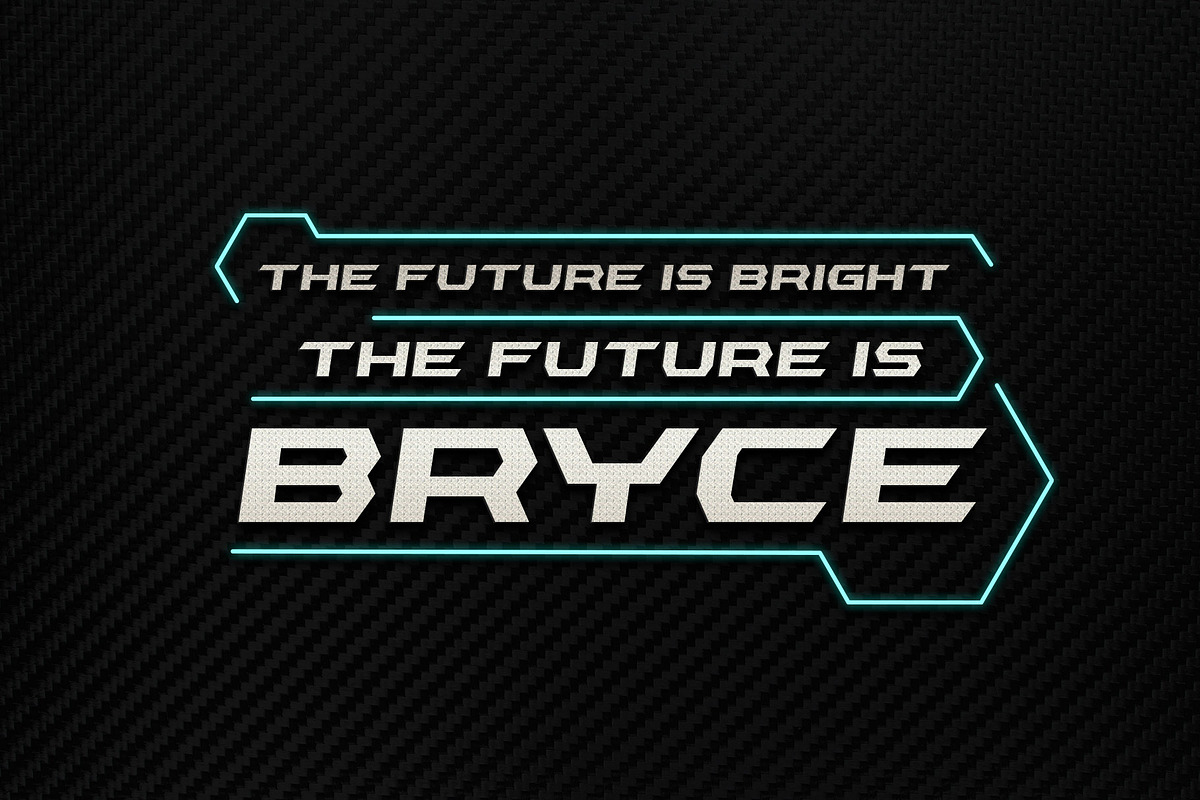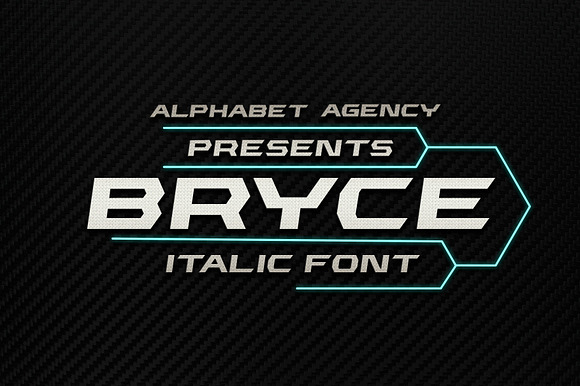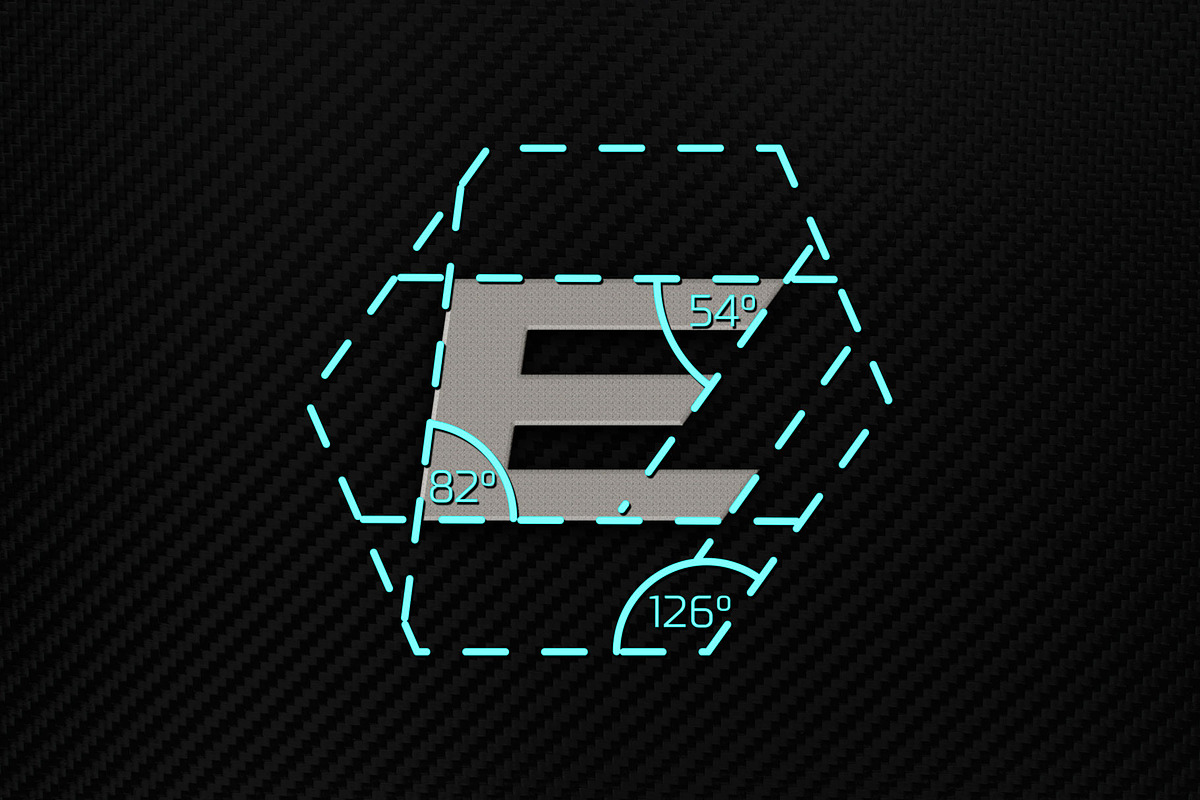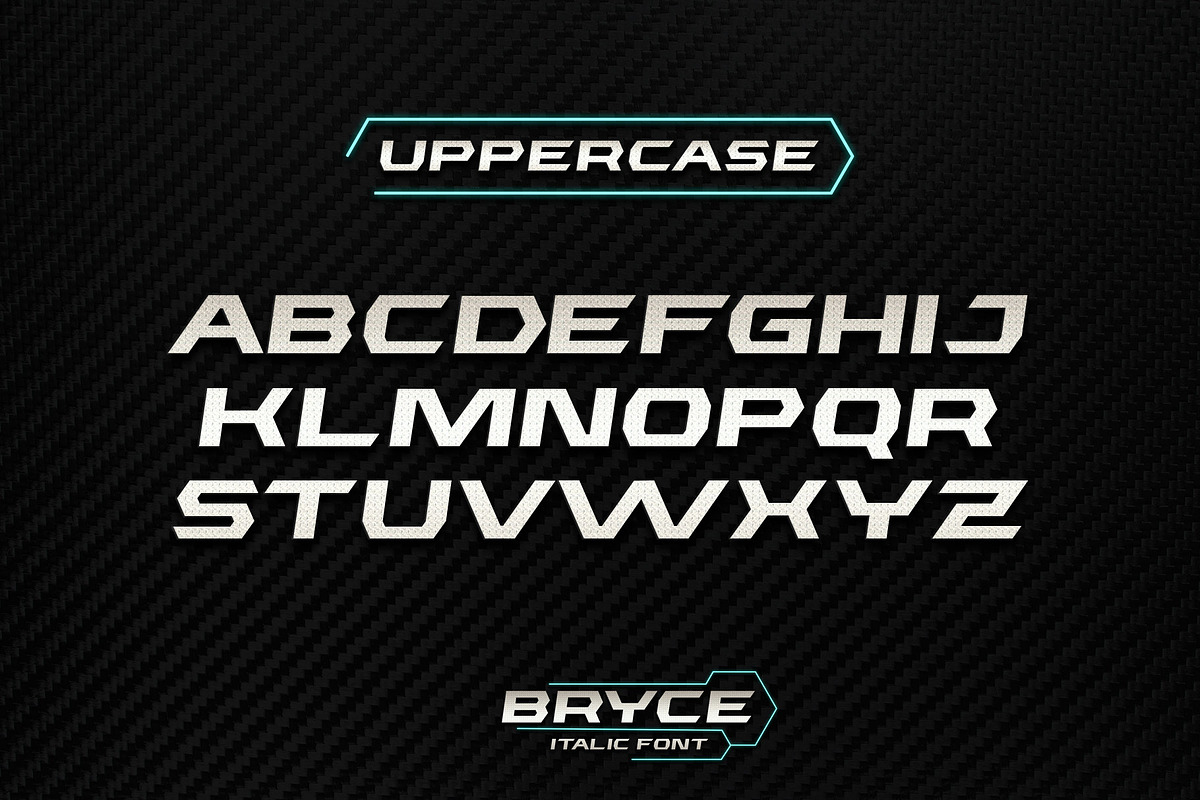
BRYCE FONT
Font designed by Jon Swinn.
- BRYCE Italic
Why BRYCE FONT is worth a look
BRYCE FONT by Alphabet Agency fits naturally into Branding, posters, packaging, typography.